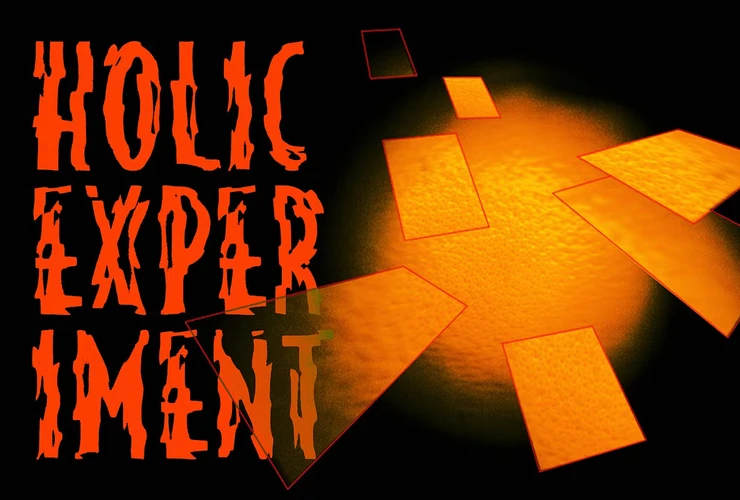
Unleash Creativity with HOLIC Experiment Font
HOLIC Experiment is a bold, all-caps experimental font that pushes the boundaries of traditional typography. Designed with abstract and random elements, this unique typeface is perfect for projects that require a distinct, avant-garde edge. Whether you’re crafting logos, eye-catching posters, or bold headlines, HOLIC Experiment offers the versatility and impact needed to make your designs truly stand out.
Why Choose HOLIC Experiment Font?
HOLIC Experiment is more than just a font; it’s a creative tool that allows designers to play with unconventional forms and unexpected shapes. The abstract nature of the font injects an artistic flair into any design, making it ideal for those who seek to break away from the ordinary and explore new visual territories.
Key Features of HOLIC Experiment Font:
Bold All-Caps Design: Make a statement with its striking and attention-grabbing uppercase characters.
Perfect for Creative Projects: Whether it’s logos, posters, or headlines, this font brings an experimental twist to your designs.
Abstract and Random Elements: The unique structure of HOLIC Experiment adds a layer of unpredictability, giving your projects a modern, edgy vibe.
Versatile Applications:
HOLIC Experiment is designed for creatives who think outside the box. Its unique style makes it ideal for:
Logo Design: Craft memorable and unconventional brand identities.
Poster Art: Create visually striking posters that draw attention with bold and abstract typography.
Headlines: Use HOLIC Experiment for magazine covers, editorial layouts, and promotional materials where impactful titles are a must.
Why This Font Stands Out:
HOLIC Experiment embraces randomness and abstractness, offering a refreshing departure from conventional fonts. It’s perfect for designers who want to explore innovative typographic expressions and inject personality into their work.